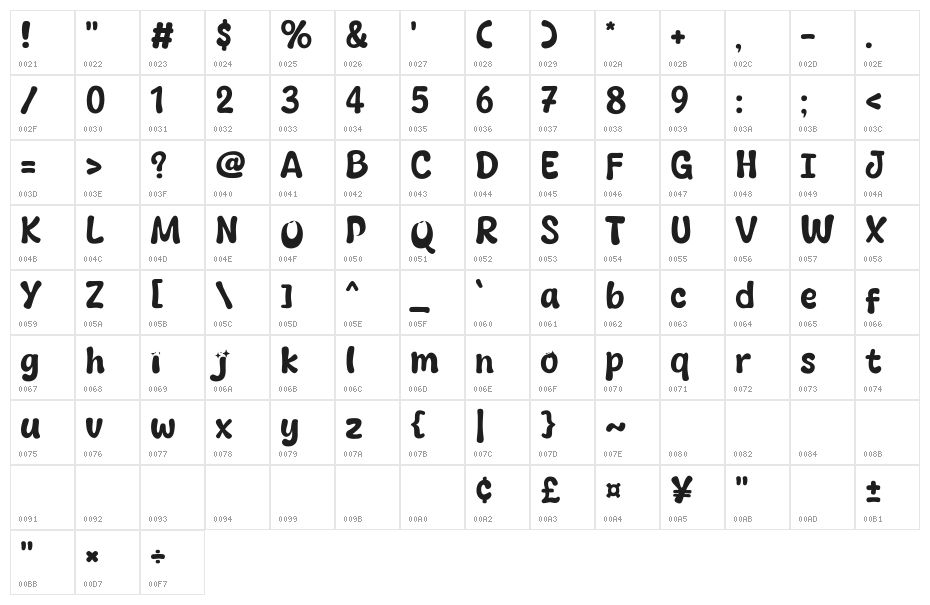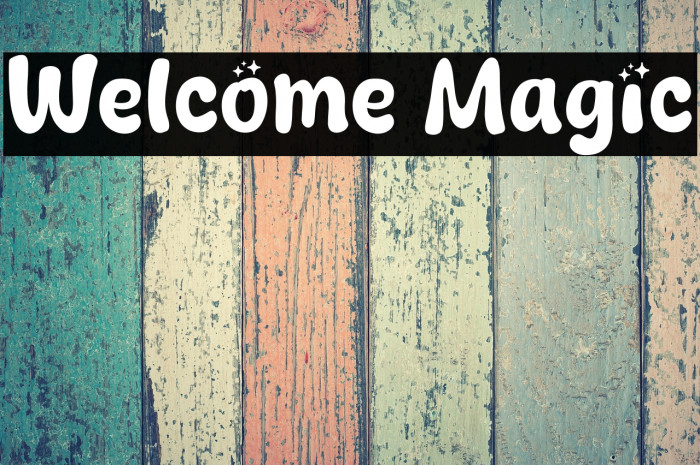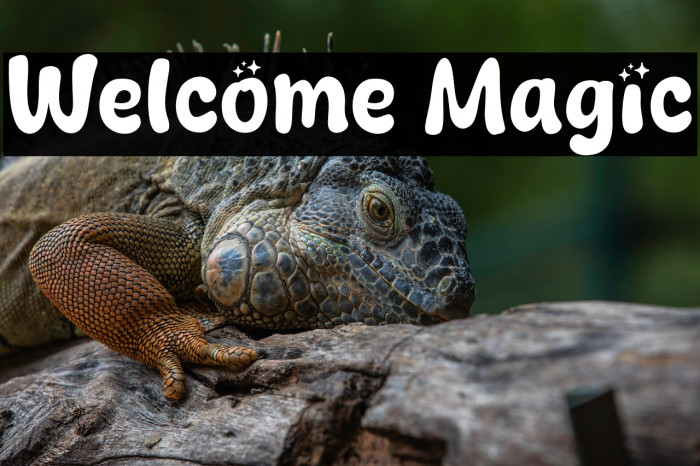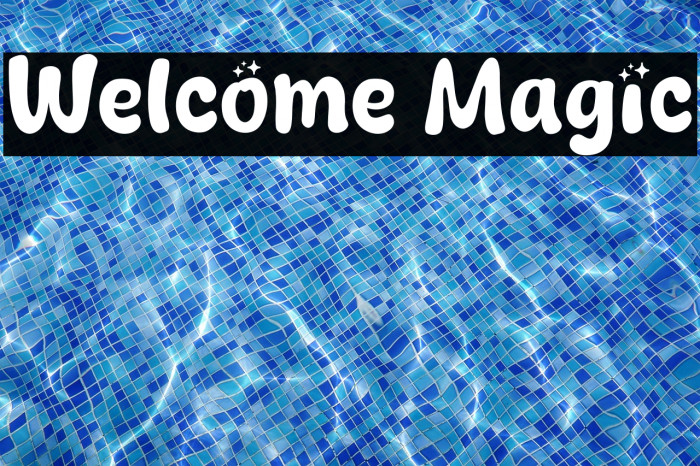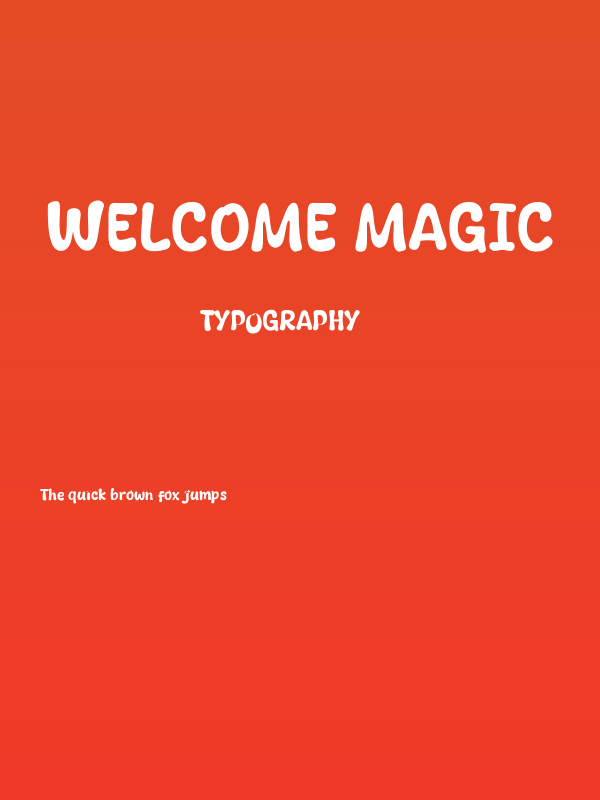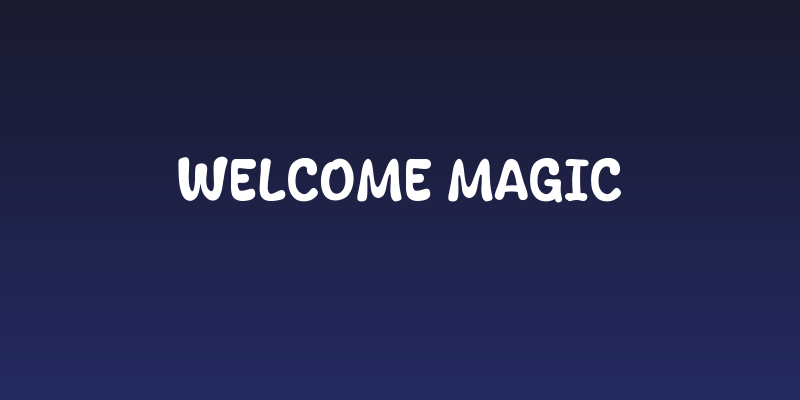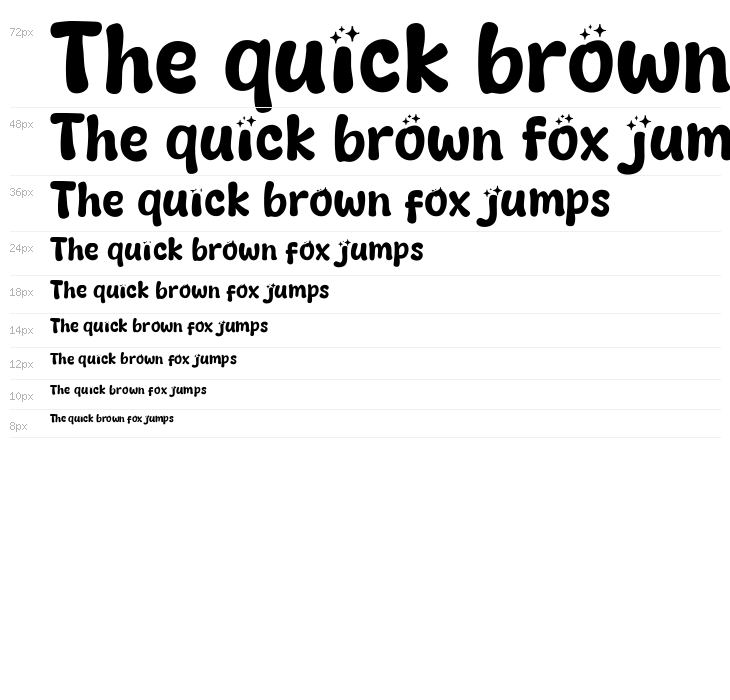
Welcome Magic Font
Welcome Magic Description
This playful and whimsical font features rounded, bold characters with a smooth, flowing style. The uppercase and lowercase letters are consistent in their rounded forms, creating a friendly and approachable appearance. The inclusion of small decorative elements, such as stars above certain letters, adds a magical touch, enhancing its charm. The numerals and special characters maintain the same rounded and bold characteristics, ensuring uniformity across the font. This font's design is perfect for capturing attention while conveying a sense of fun and creativity.
| Overall Style | Whimsical |
| Proposed Projects | Ideal for children's books, playful branding, party invitations, and creative posters. |